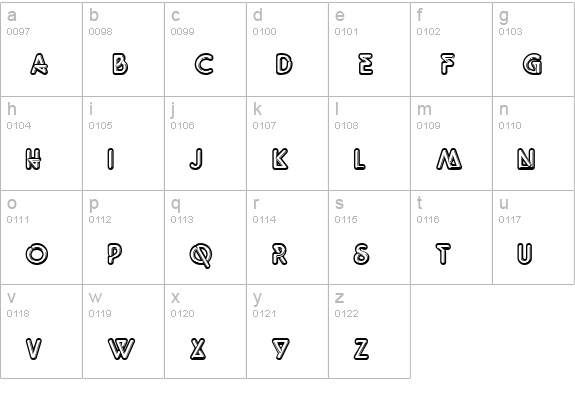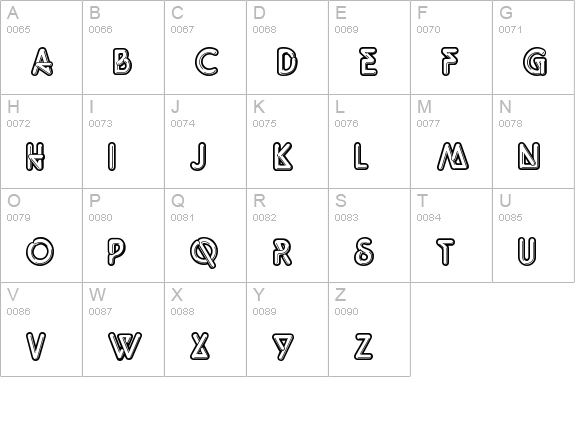
Neonz Normal Font Details
Neonz Normal is the standard, neutral variant in the Neonz typeface family \xE2\x80\x94 well suited to general body text, paragraphs, and standard typographic work.
Neonz Normal font is a sleek and modern typeface that exudes a vibrant energy perfect for a wide range of design projects. With its clean lines and bold presence, this font is sure to make a statement and capture attention. Whether you're working on branding, advertising, or any other creative endeavor, Neonz Normal font will add a touch of contemporary flair to your work. Best of all, Neonz Normal font is completely free to download at FontsMarket.com. This means you can easily access this stylish font and enhance your designs without any cost. Don't miss out on the opportunity to elevate your projects with the striking Neonz Normal font – download it today and start creating eye-catching visuals that stand out from the crowd.